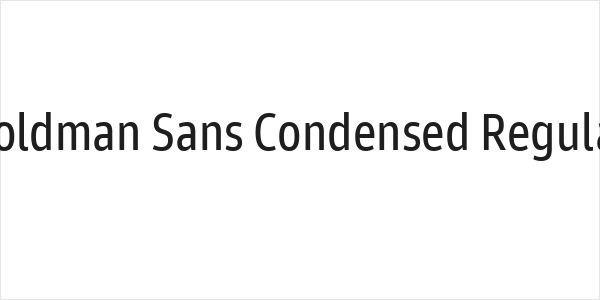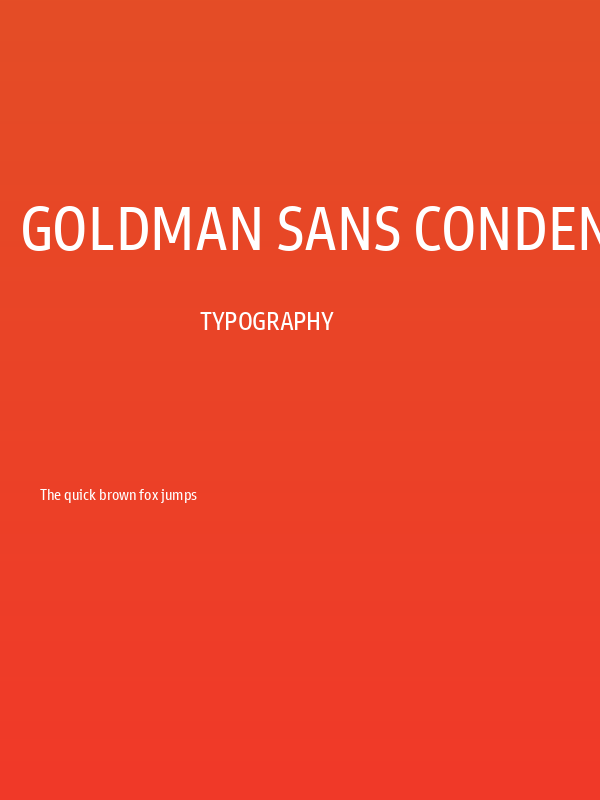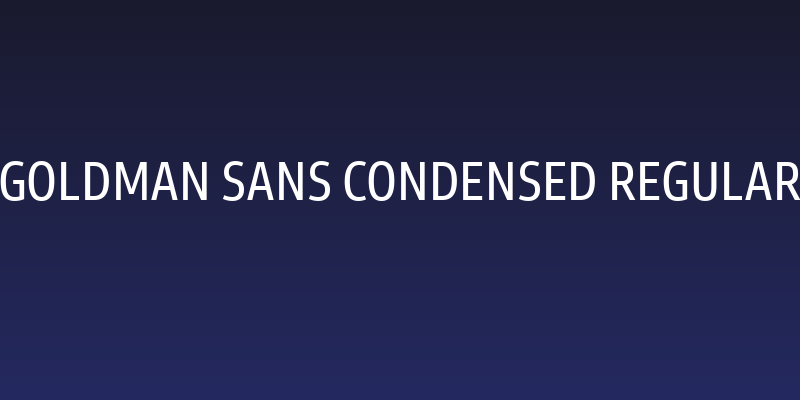
Goldman Sans Condensed Regular Font
Goldman Sans Condensed Regular Description
This typeface features a clean and modern sans-serif design with a condensed structure, making it highly efficient for space-saving applications. The characters are uniform and well-balanced, with a consistent stroke width that provides a harmonious and professional appearance. The uppercase and lowercase letters are clearly distinguishable, ensuring readability across various sizes. The numerals are straightforward and align well with the overall style, while the special characters are crafted to maintain the font's cohesive look. This font is versatile, suitable for both digital and print media, and can be used effectively in a range of design contexts.